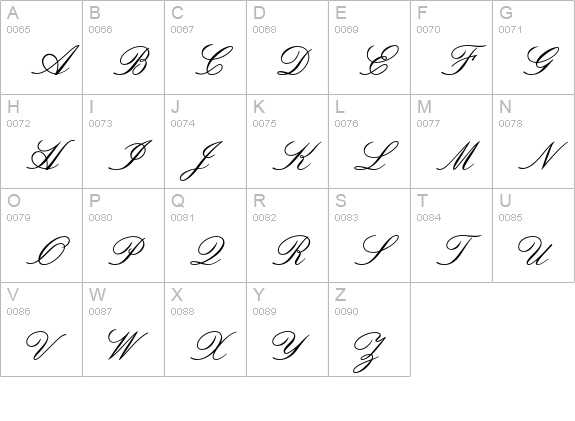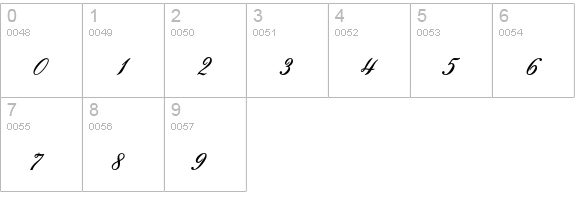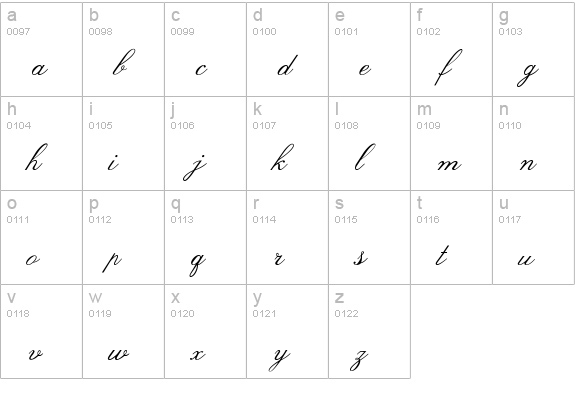
OPTIVenetian-Script Font Details
Introducing OPTIVenetian-Script, a stunning and elegant font that exudes sophistication and charm. This exquisite script font features delicate swirls and flourishes that add a touch of luxury to any design project. Whether you are working on wedding invitations, branding materials, or any other creative endeavor, OPTIVenetian-Script is sure to elevate your work to the next level. The best part? OPTIVenetian-Script is available for free download exclusively at FontsMarket.com. This means you can easily access this beautiful font without breaking the bank. So why wait? Elevate your designs with OPTIVenetian-Script today and add a touch of elegance to your projects.